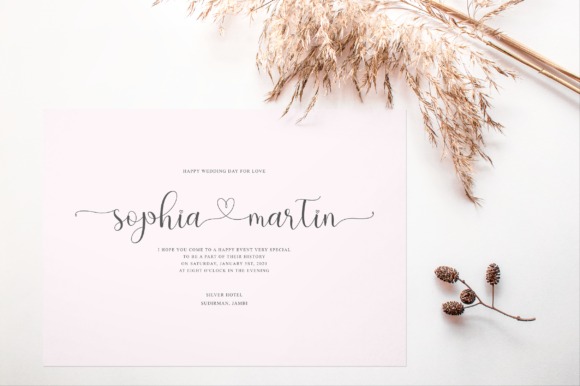
Hello Olive Calligraphy Font
This font is a feminine typeface that is lovely, graceful, and appealing. Made from font designer named fanastudio. Fall in love with its authentic feel and use it to create gorgeous wedding invitations, beautiful stationary art, eye-catching social media posts, and cute greeting cards.